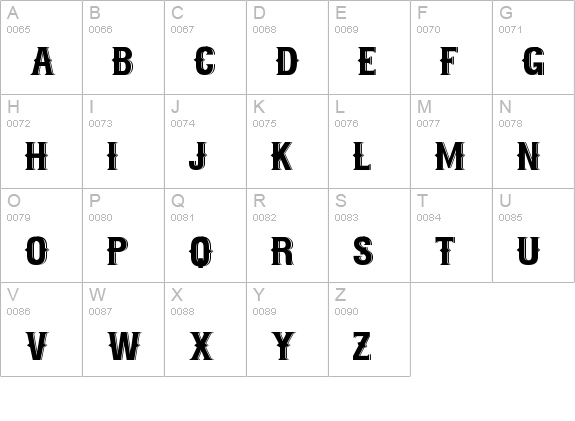
MarineWhiskey_1 Font Details
MarineWhiskey_1 font is a stunning and versatile typeface that exudes elegance and sophistication. Its sleek lines and modern aesthetic make it perfect for a wide range of design projects, from branding to editorial design. The font features a unique blend of classic and contemporary elements, giving it a timeless appeal that is sure to elevate any project. With its bold and eye-catching design, MarineWhiskey_1 font is sure to make a statement and capture the attention of your audience. Whether you're creating a logo, poster, or website, this font will add a touch of class and sophistication to your designs. Best of all, MarineWhiskey_1 font is completely free to download at FontsMarket.com. This means you can start using this stunning typeface in your projects right away, without having to worry about any additional costs. Don't miss out on the opportunity to add this beautiful font to your design toolkit today!